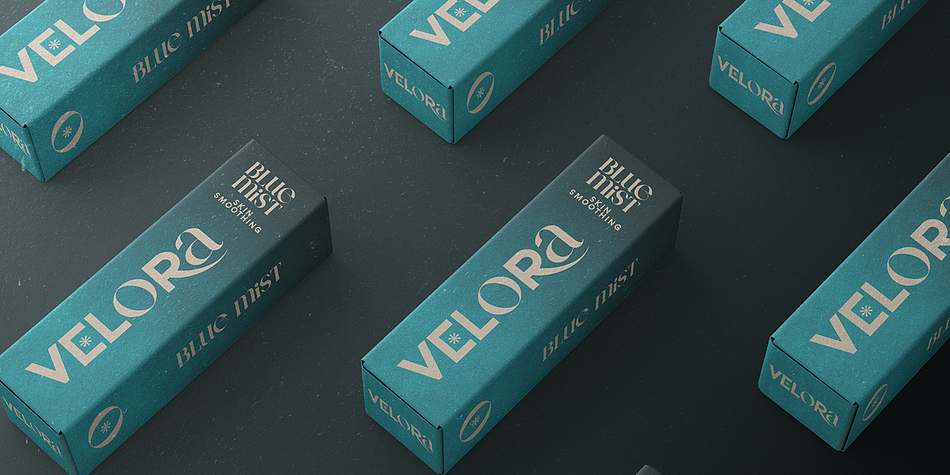
Neat Type
Neat Type is a display font family published by VPcreativeshop.
Introducing Neat Type, a sophisticated and innovative font that seamlessly blends the elegance of serif with the modernity of sans serif. Designed with versatility in mind, this unique typeface features uppercase characters in sleek sans serif, while lowercase letters boast a refined serif style. Perfect for designers and creatives seeking a fresh, hybrid look, Neat Type includes a rich set of alternate and ligature glyphs, enhancing your design possibilities. With support for 87 languages, Neat Type is the ideal choice for global projects, offering a stylish and contemporary solution for your typography needs.